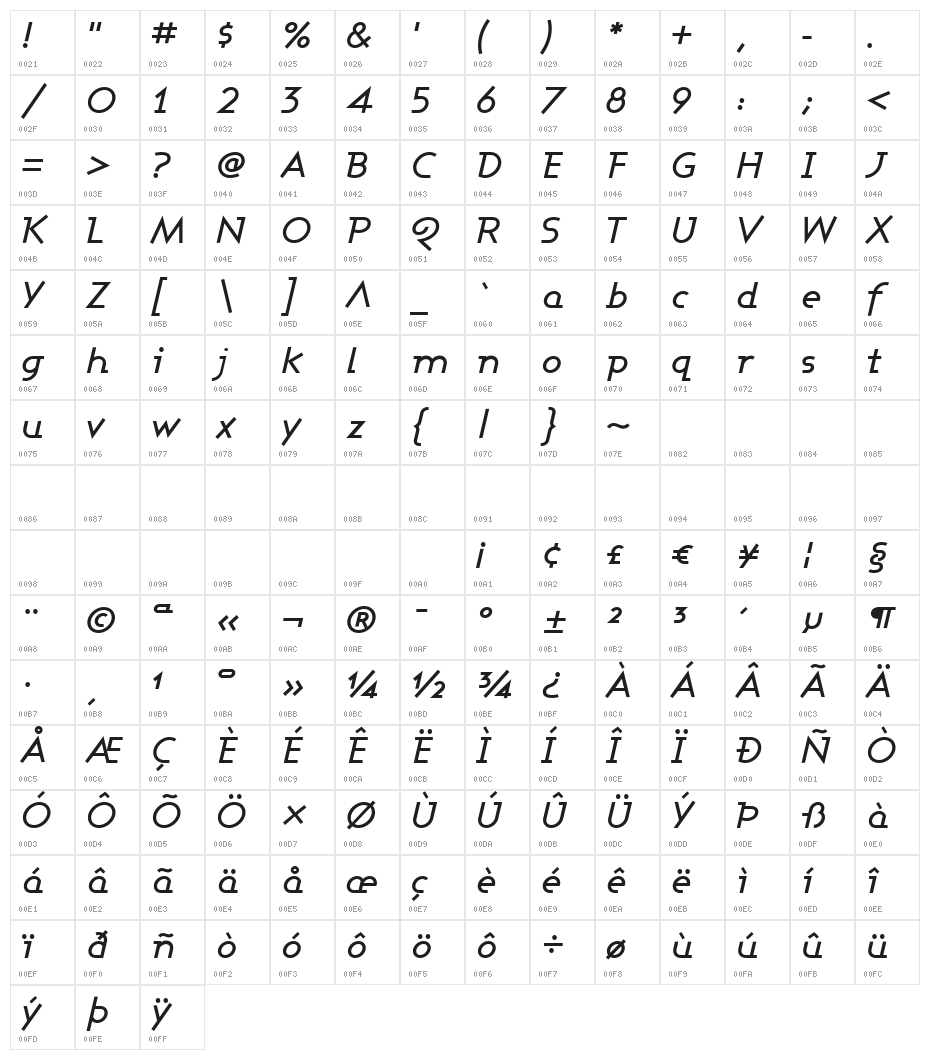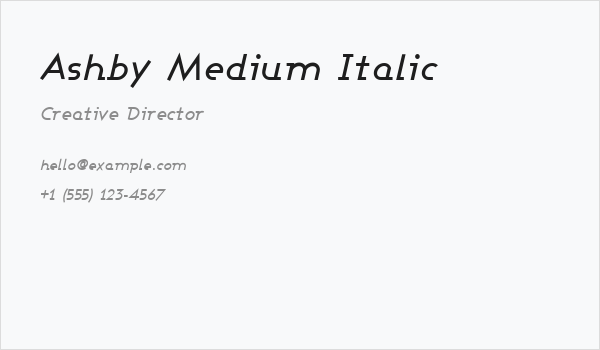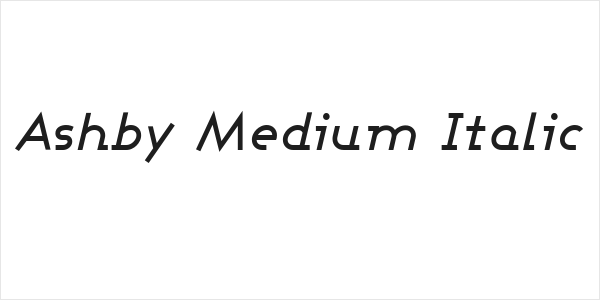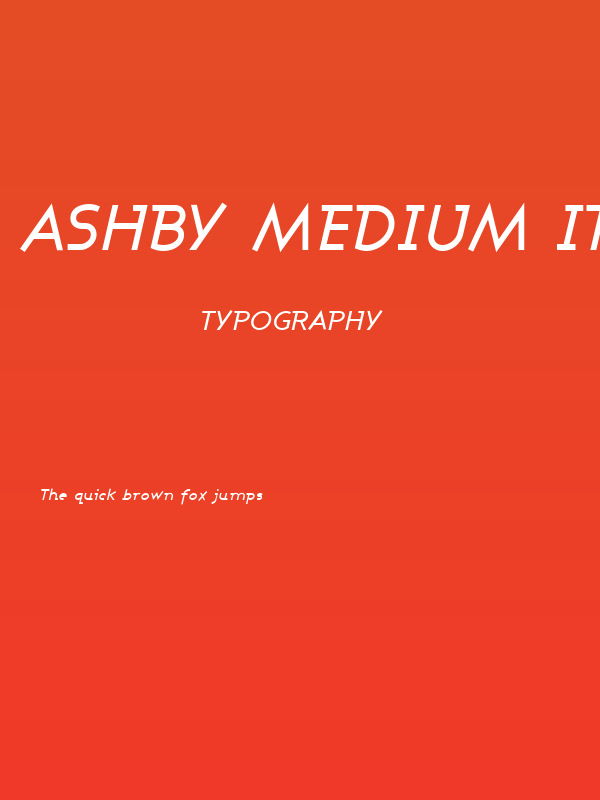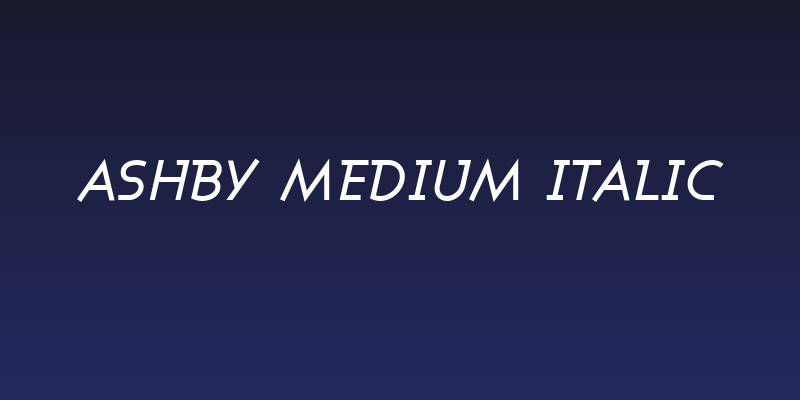
Ashby Medium Italic Font
Ashby Medium Italic Description
This font features a sleek, italicized style with a modern and dynamic appearance. The characters are slightly slanted, giving a sense of motion and elegance. The uppercase letters are bold and prominent, while the lowercase letters maintain a consistent flow. The numerals are clear and easy to read, complementing the overall aesthetic. Special characters are well-defined, adding versatility to the font. The design balances readability with a stylish flair, making it suitable for various creative applications.
Use CaseHeadlines, Logos, Editorial design
Proposed ProjectsIdeal for branding, advertising, and editorial design projects where a modern and elegant touch is desired.